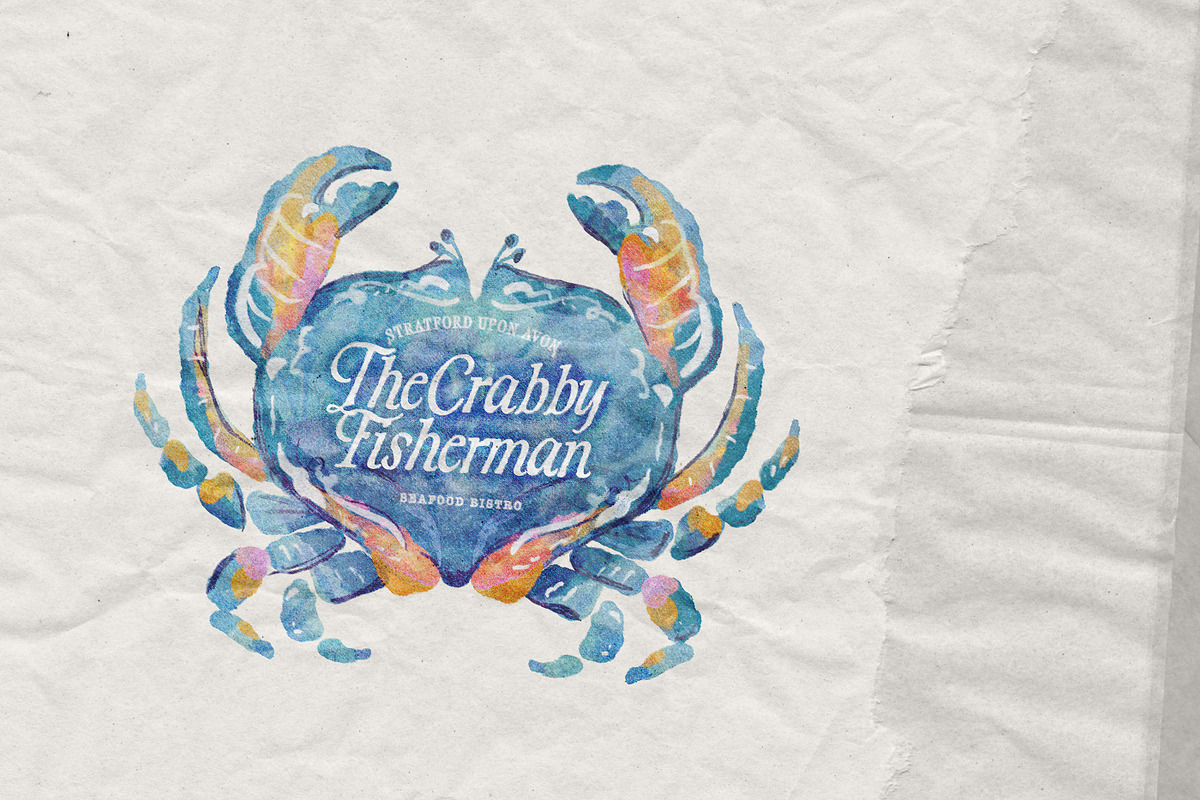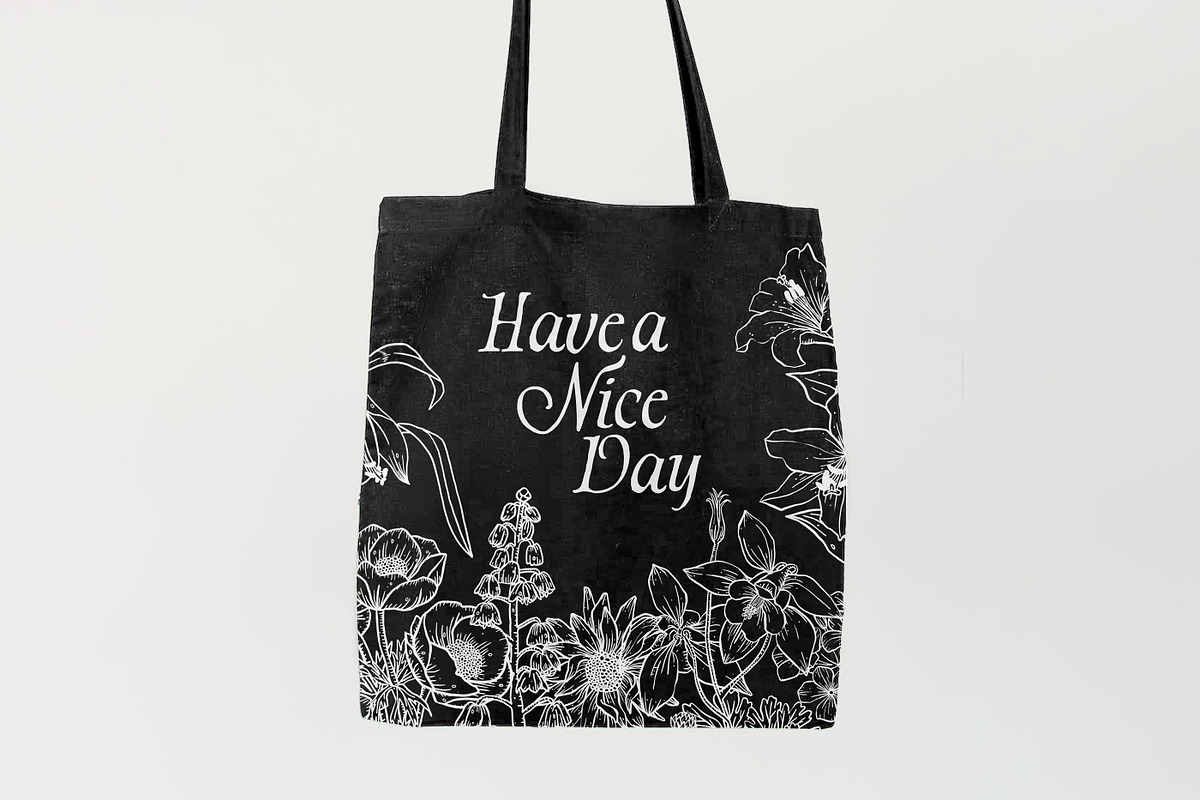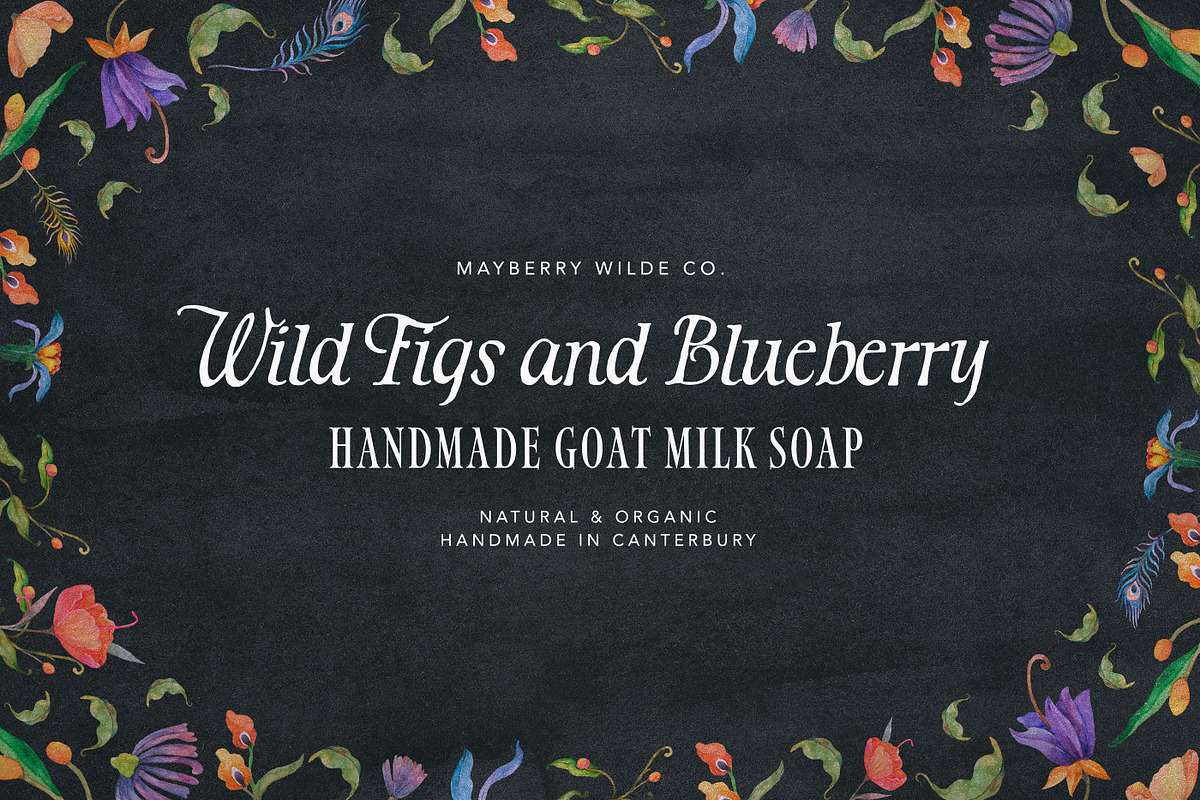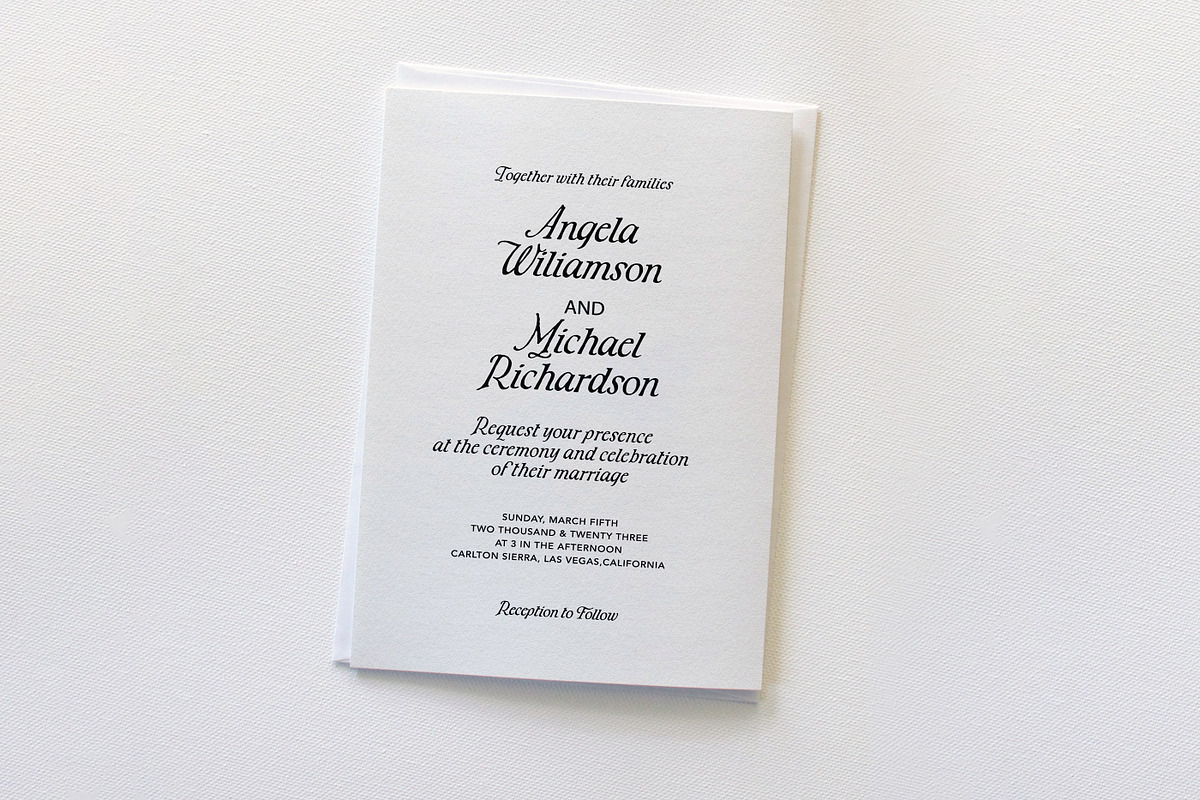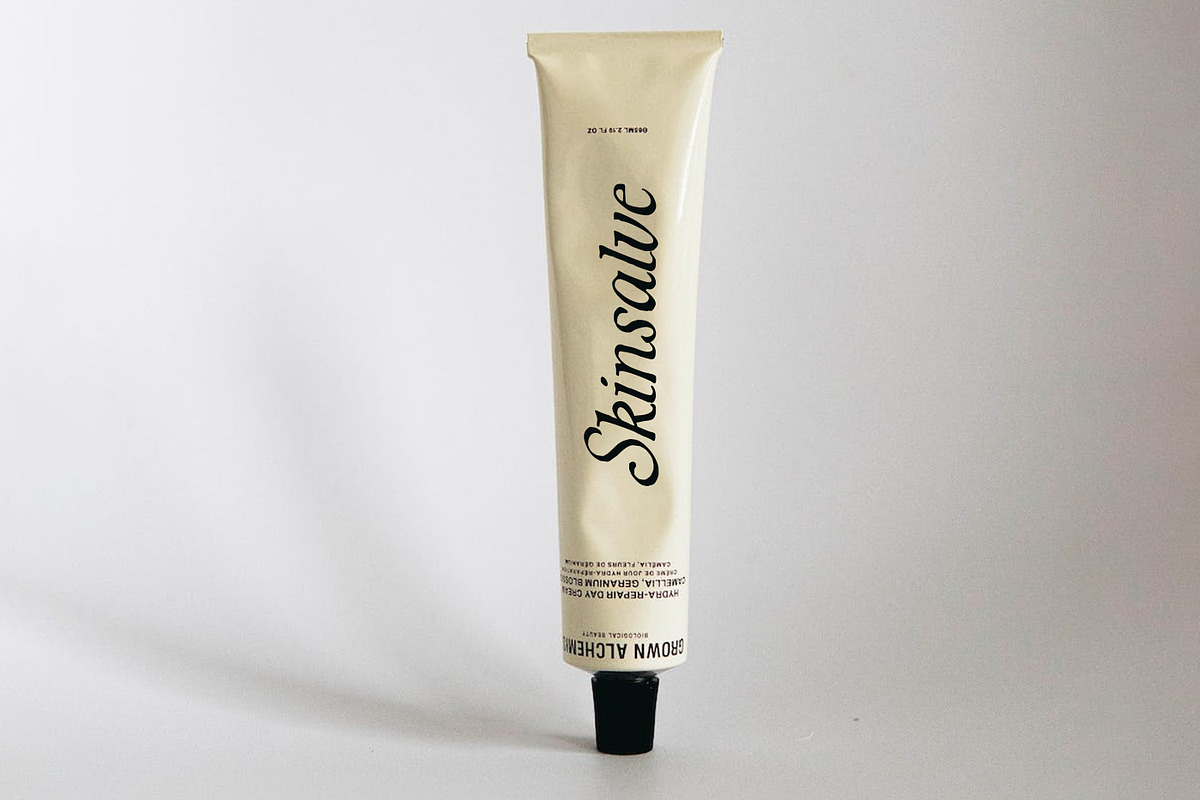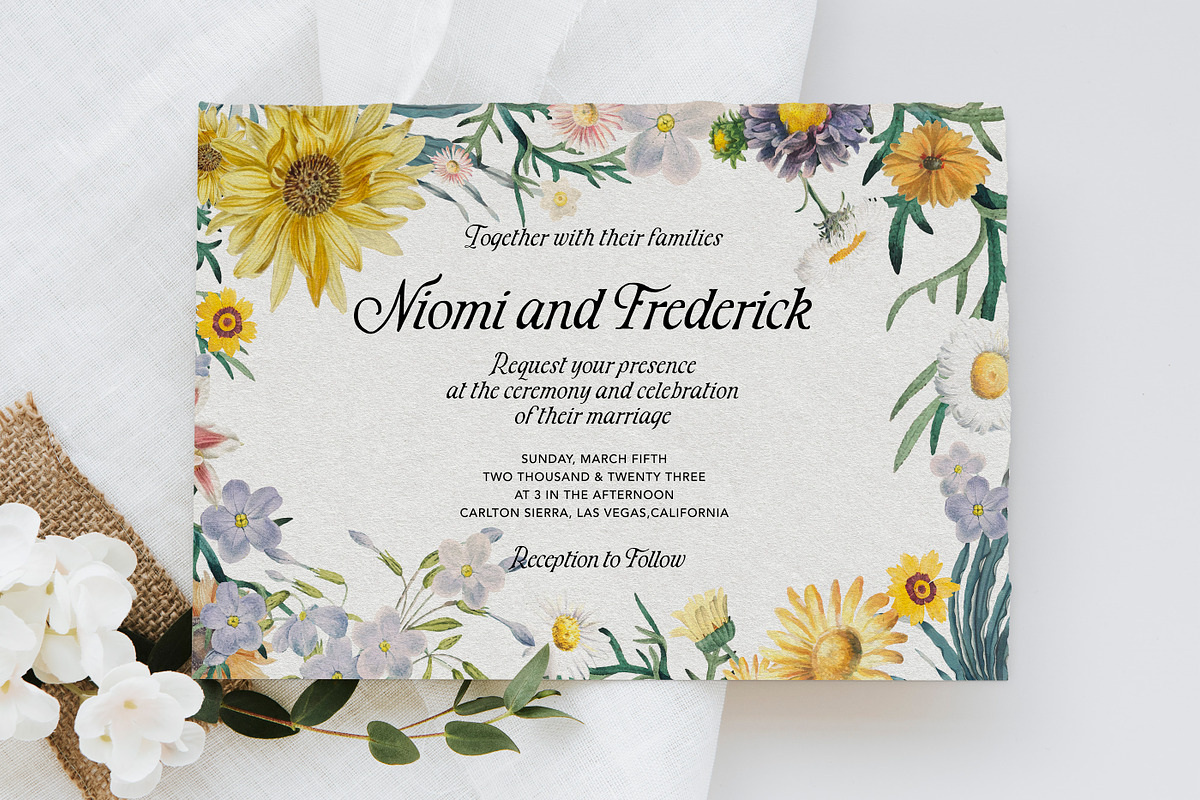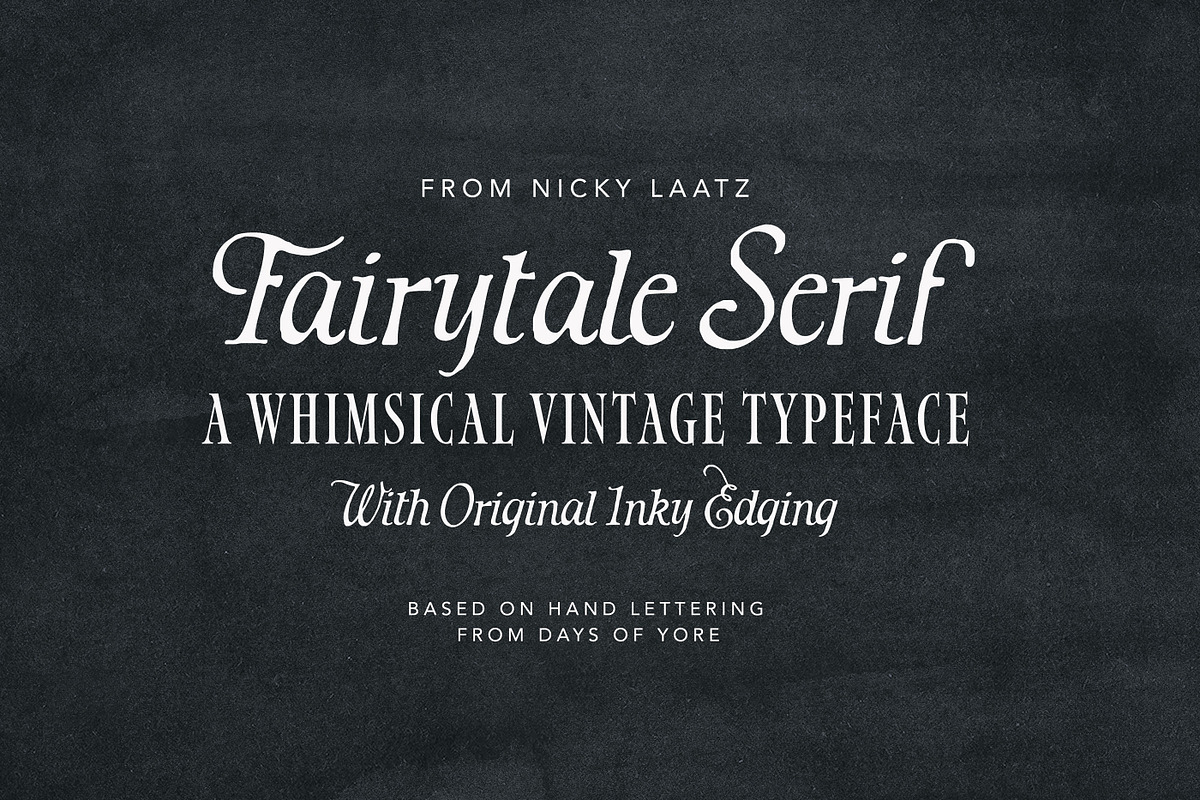
Fairytale Serif
A whimsical little serif transporting you back in time. Based on vintage hand scribed italics, Fairytale Serif is ready to charm it's beholder with its quaint inky edged letters.